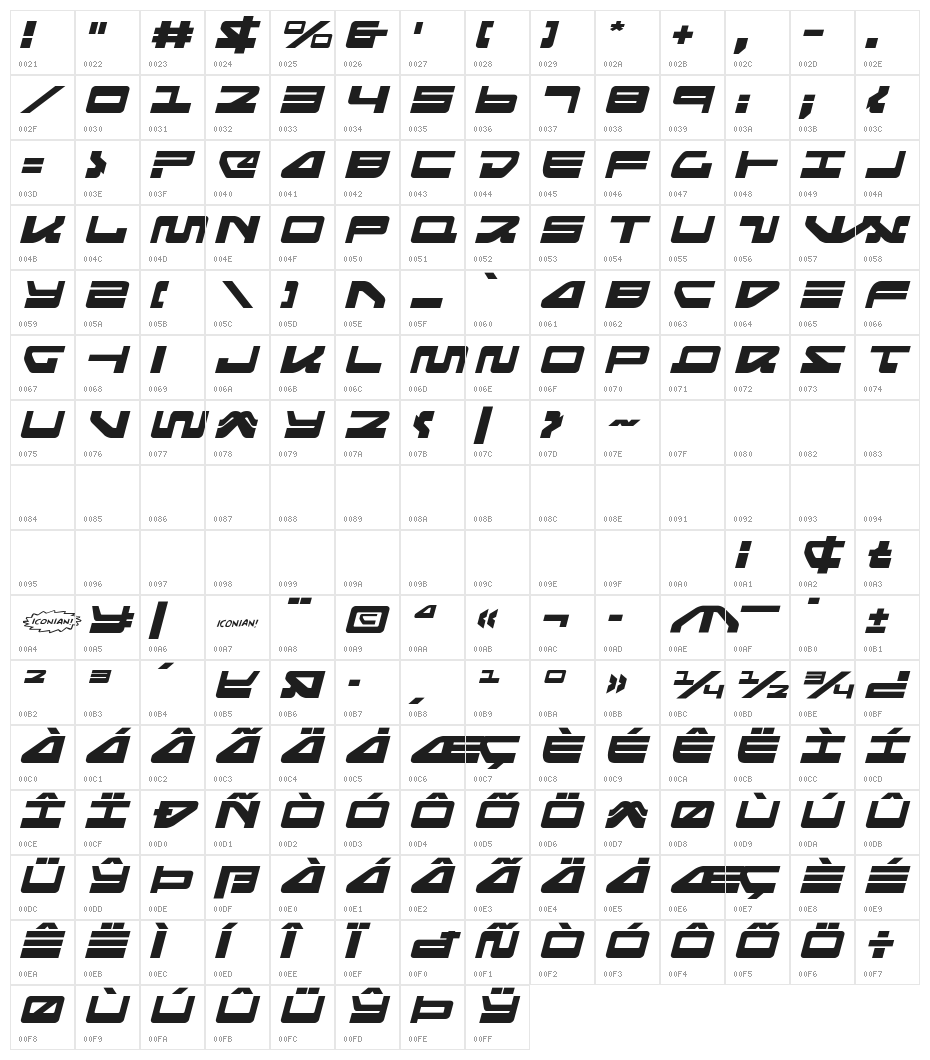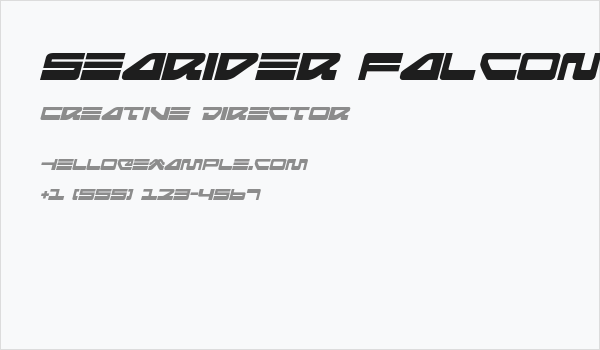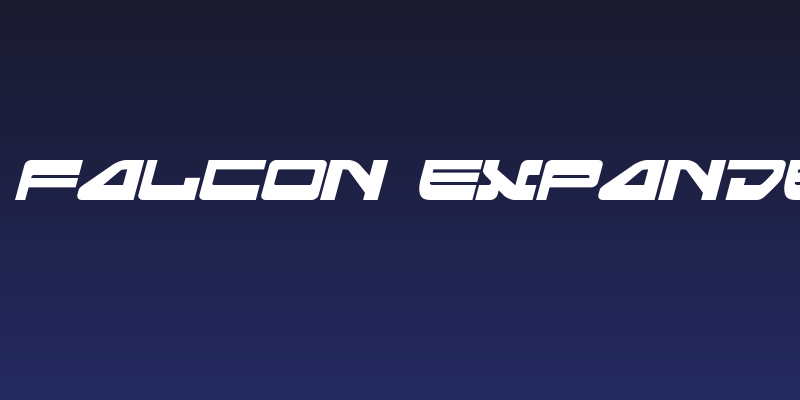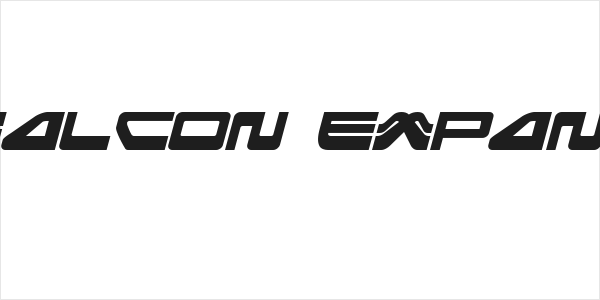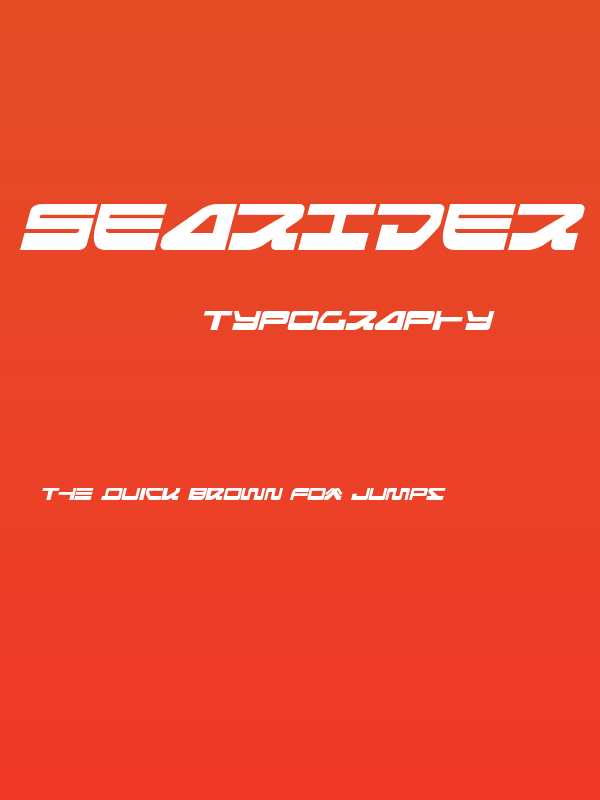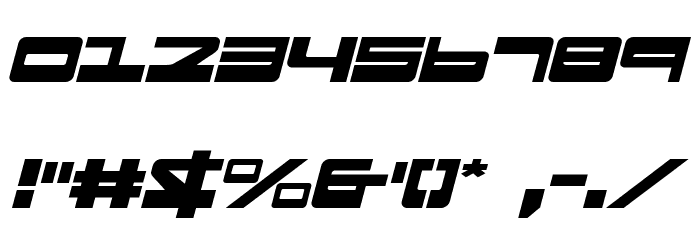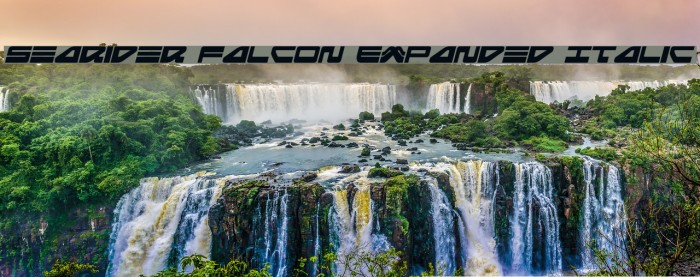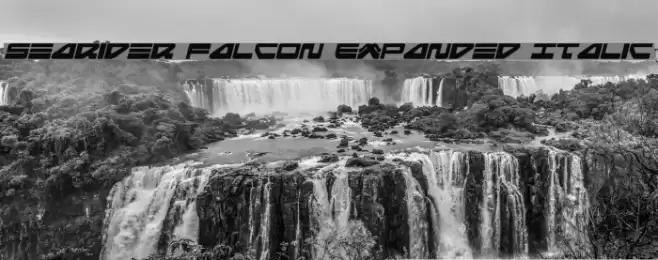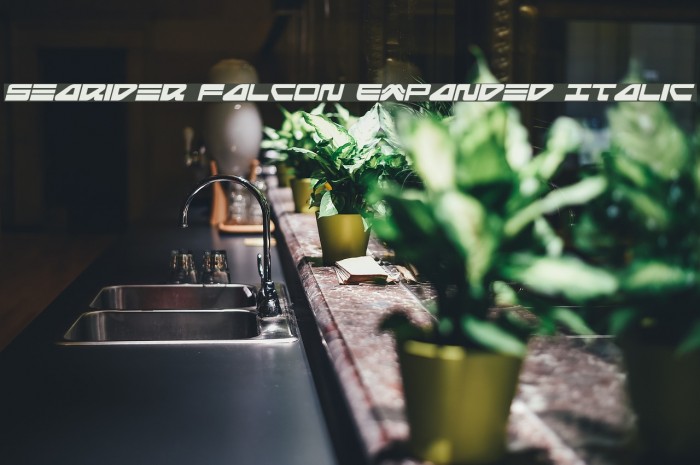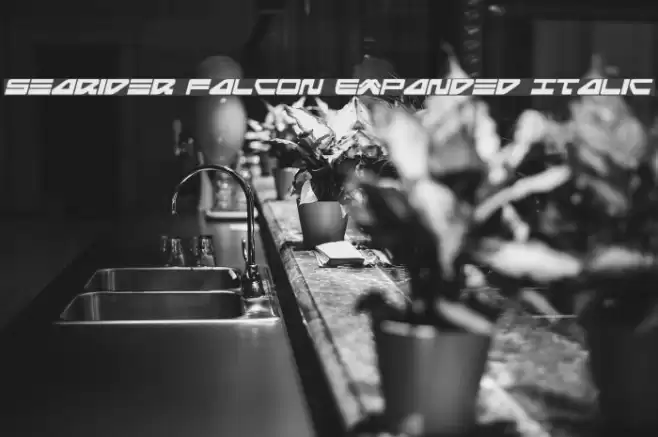
Searider Falcon Expanded Italic Font
Searider Falcon Expanded Italic Description
This font features a bold, futuristic design with an italicized slant, giving it a dynamic and forward-moving appearance. The characters are expanded, providing a wide stance that enhances readability while maintaining a unique style. The geometric shapes and sharp angles contribute to its modern aesthetic, making it suitable for projects that require a strong visual impact. The uppercase and lowercase letters share a consistent style, with numbers and special characters designed to match the overall theme. This font is ideal for creating eye-catching headlines, logos, and branding materials that need to stand out.
| Overall Style | Futuristic |
| Proposed Projects | Ideal for sci-fi themed designs, technology branding, sports team logos, and dynamic posters. |